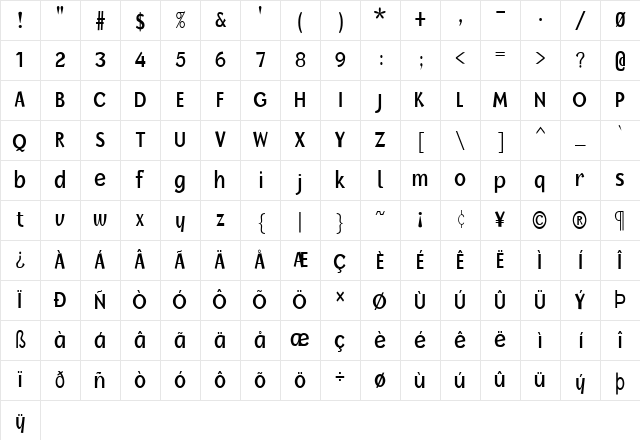
FZ BASIC 14 COND Normal
Design Context for FZ BASIC 14 COND
FZ BASIC 14 COND is a composed and adaptable typeface that performs quietly and consistently across a wide range of design contexts. Its narrow stance lets it pack a punch even in space-constrained designs.
Pro Tip: Use FZ BASIC 14 COND in both headline and body roles to test its range before committing to a single application.